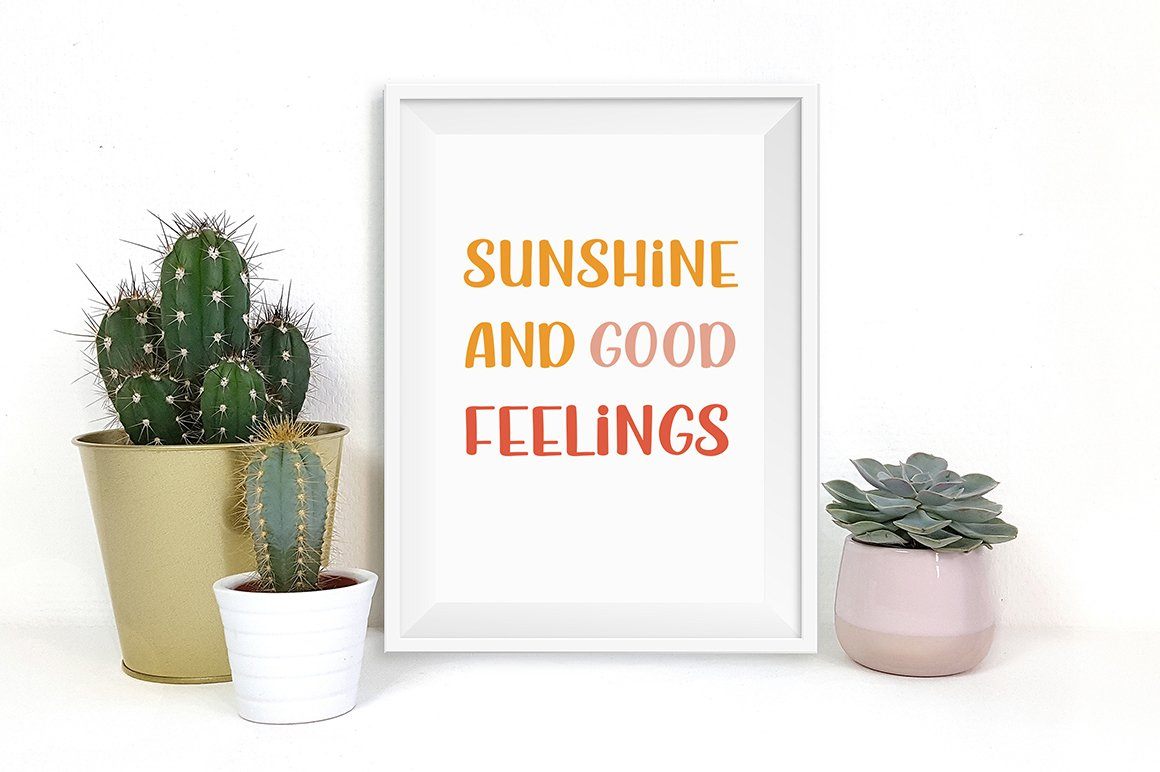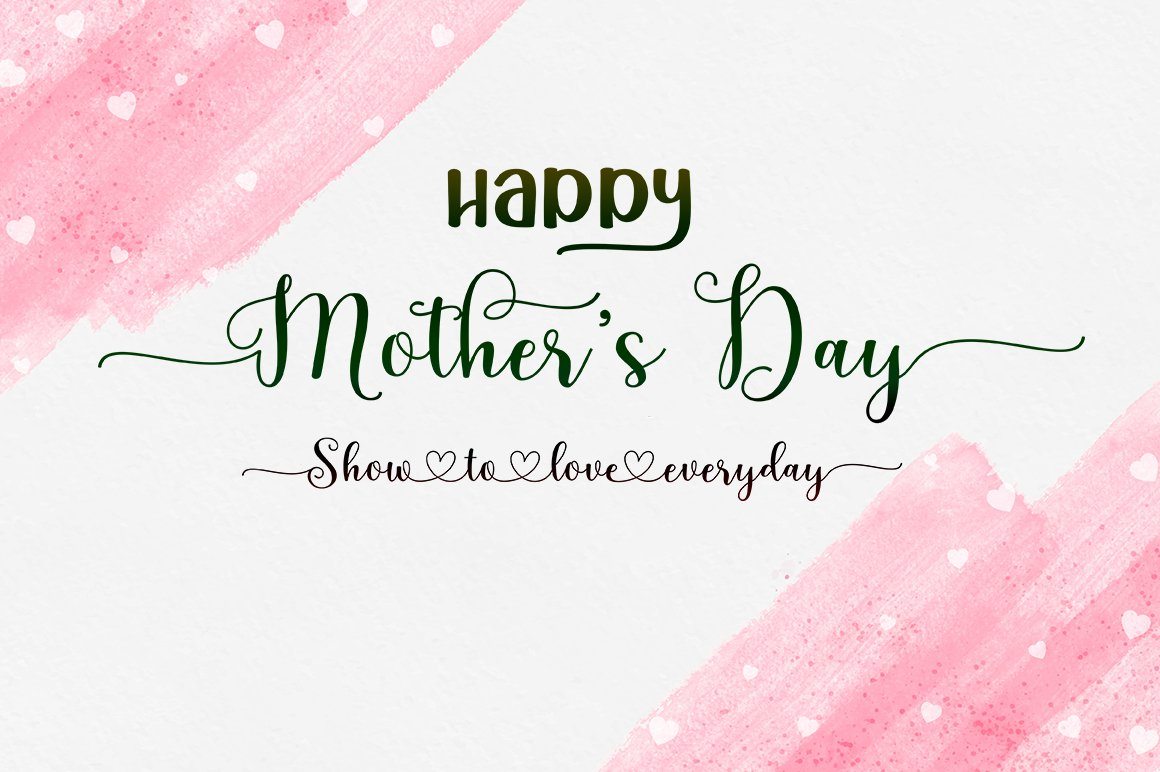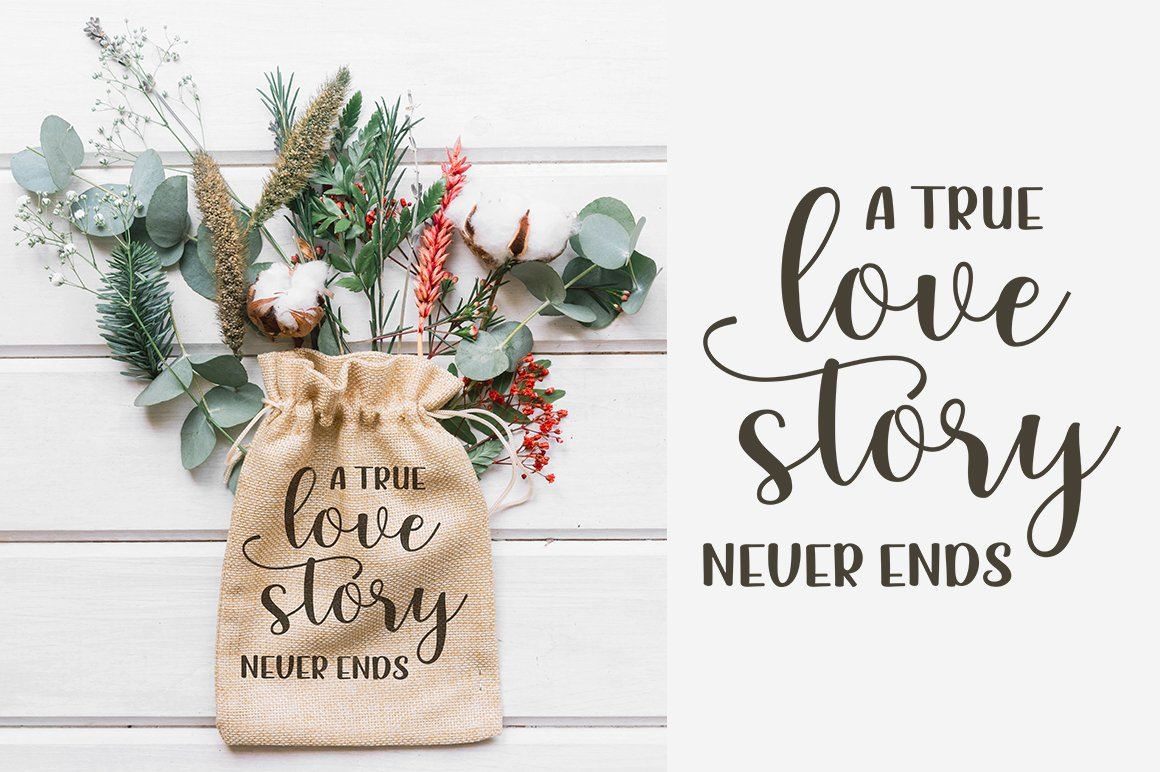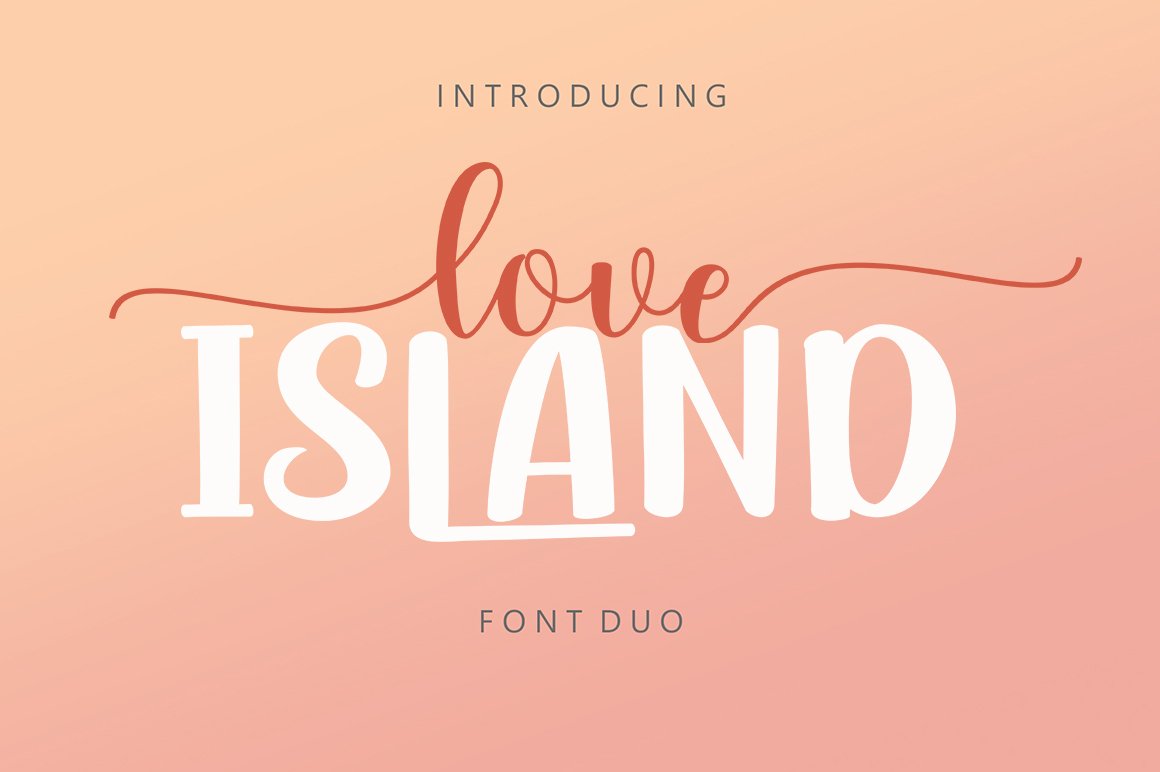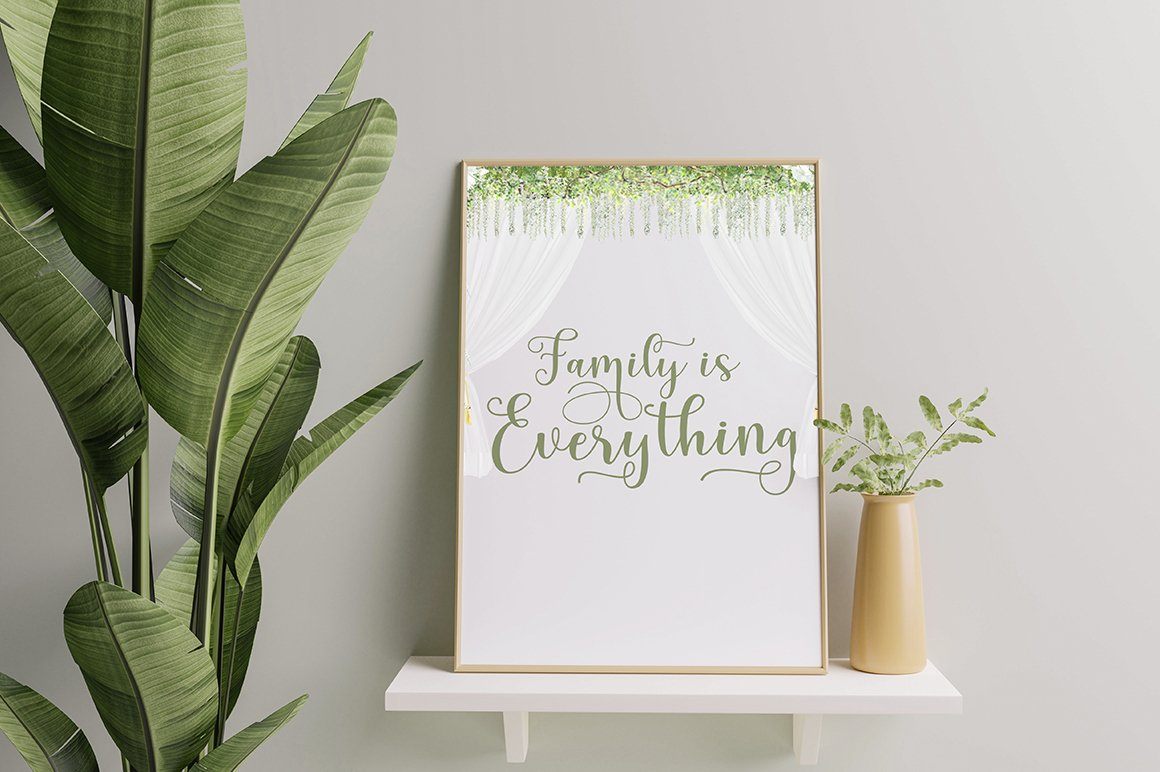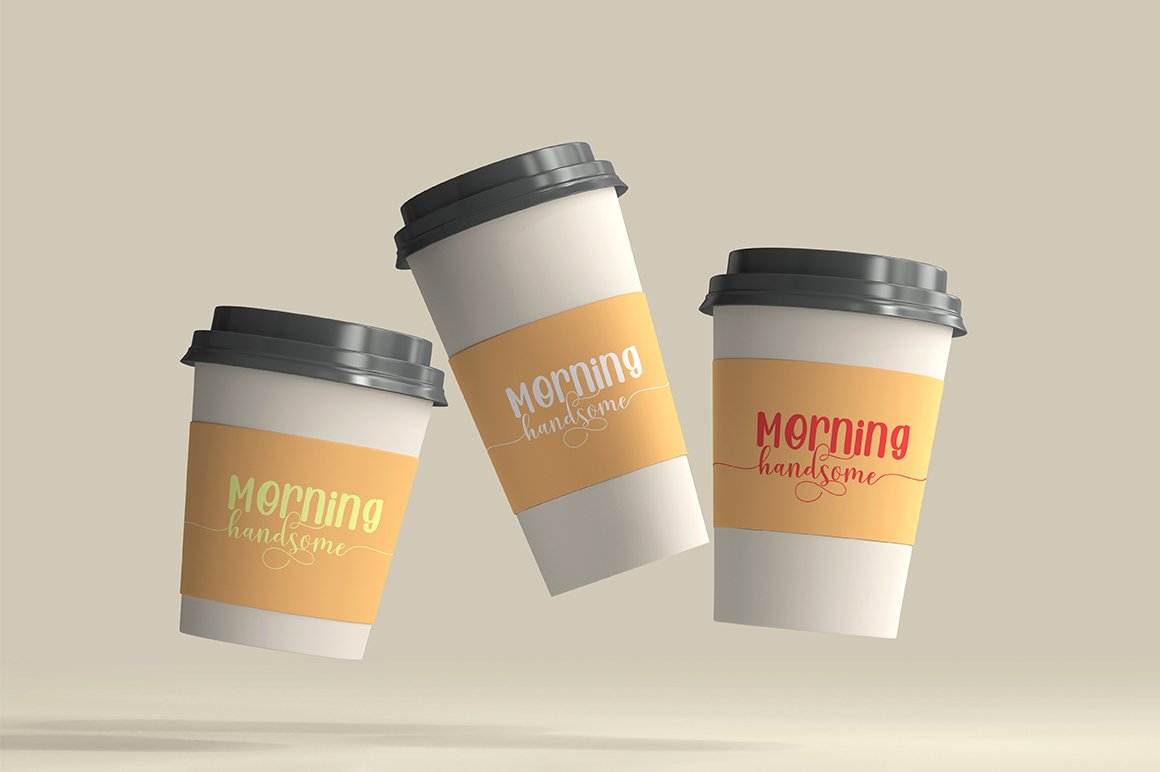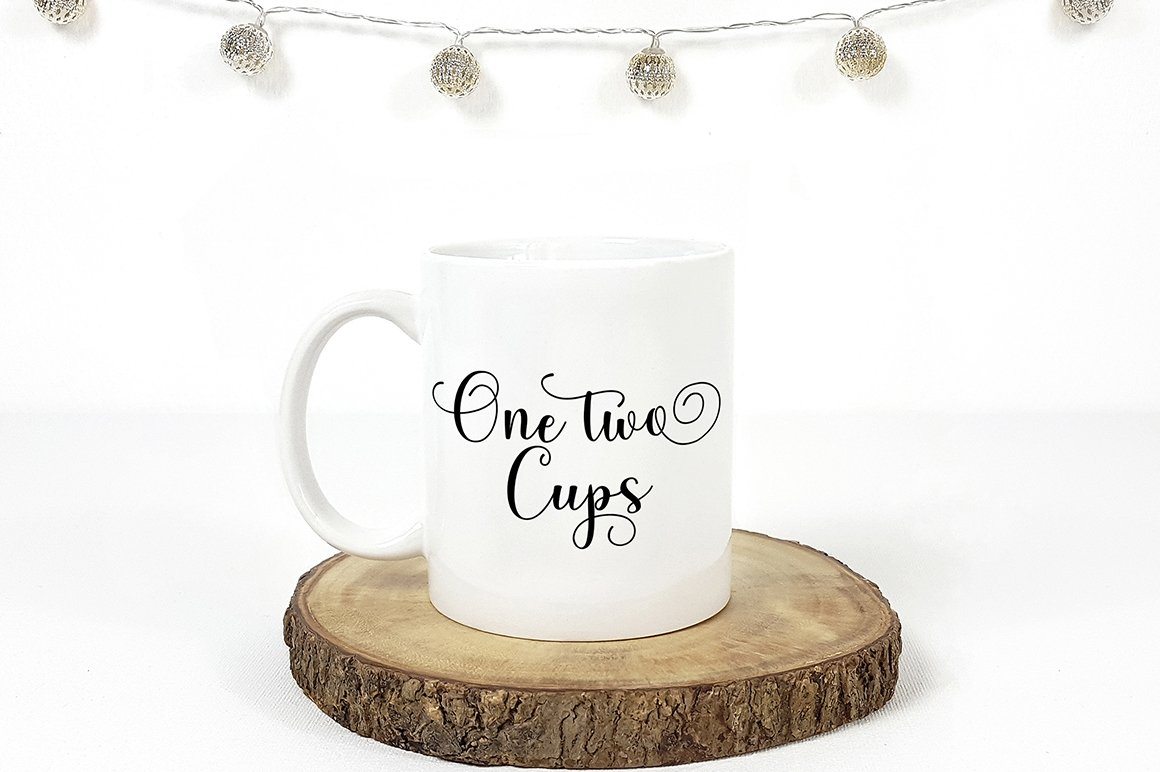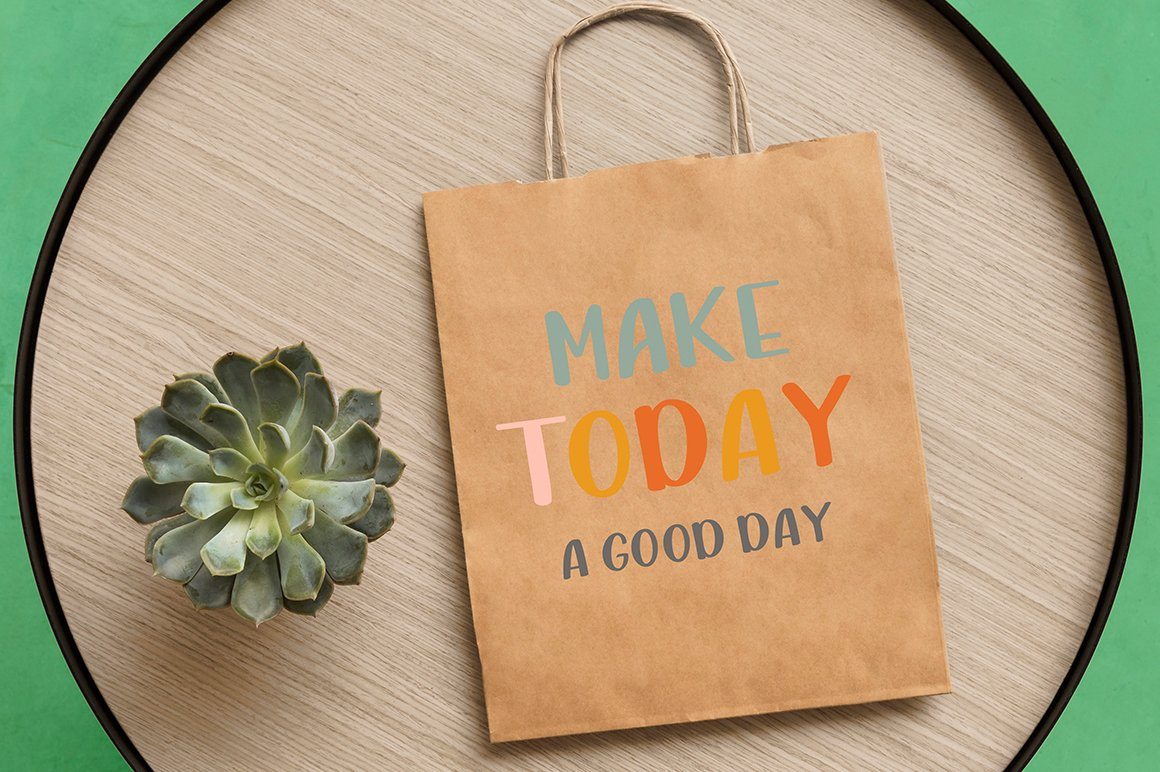
Love Island Font Duo
Love Island Font Duo is a duo styled handwritten font which feels equally charming and delicate. This font is PUA encoded which means you can access all of the glyphs and swashes with ease! Love Island Font Duo will turn any creative idea into a standout! Love Island Font Duo looks lovely on wedding invitations, thank you cards, quotes, greeting cards, logos, business cards and more. Perfect for using in ink or watercolour. Including initial and terminal letters, alternates, ligatures and multiple language support. Files included: Love Island Font Duo OTF Love Island Font Duo TTF To enable the OpenType Stylistic alternates, you need a program that supports OpenType features such as Adobe Illustrator CS, Adobe Indesign & CorelDraw X6-X7, Microsoft Word 2010 or later versions. There are additional ways to access alternates/swashes, using Character Map (Windows), Nexus Font (Windows), Font Book (Mac) or a software program such as PopChar (for Windows and Mac).